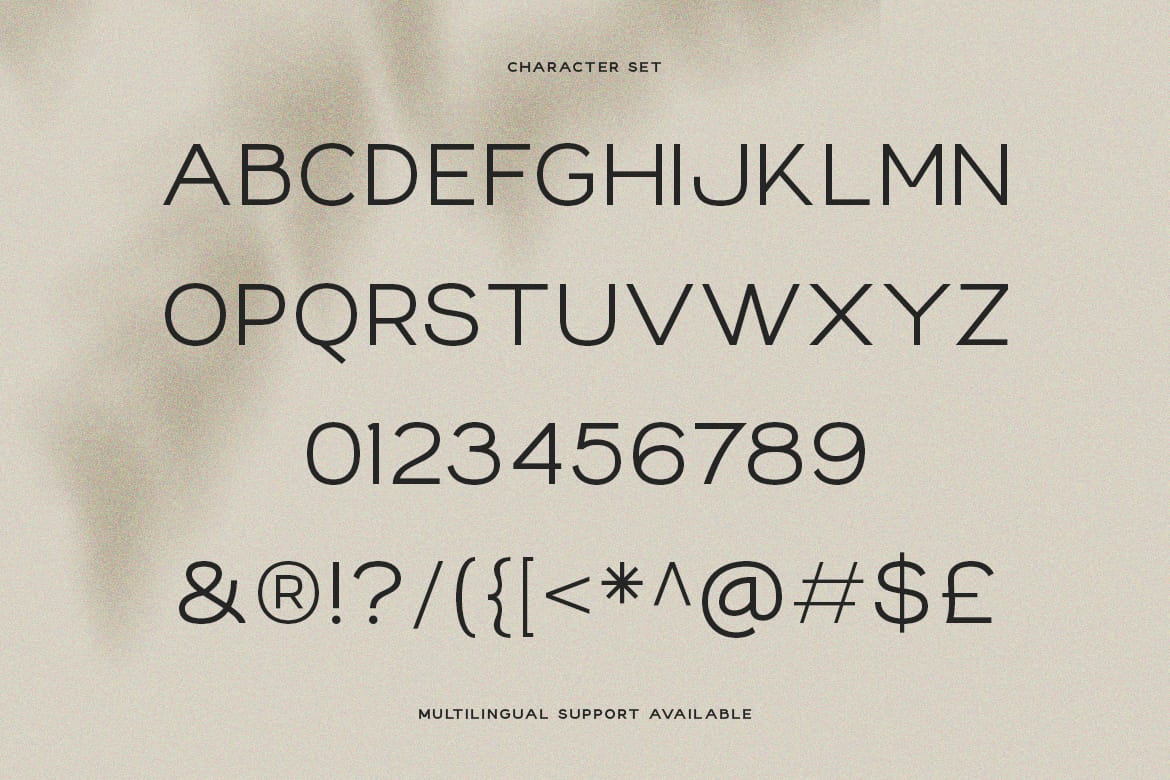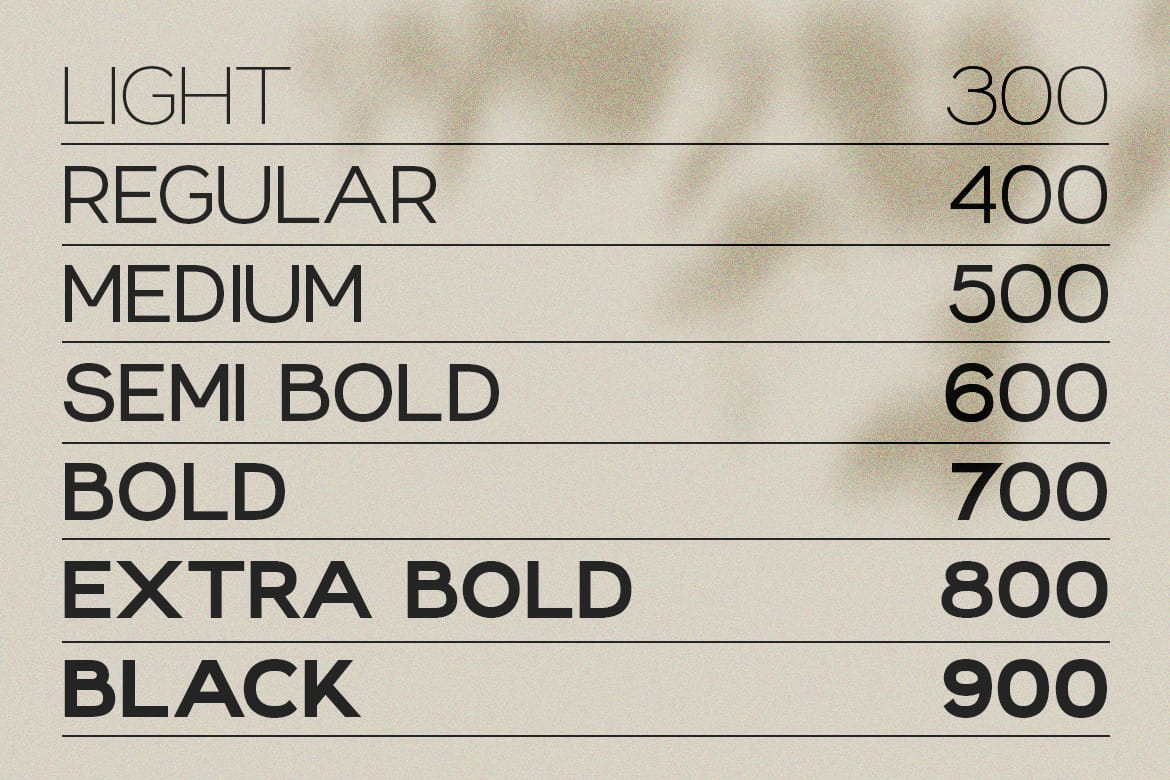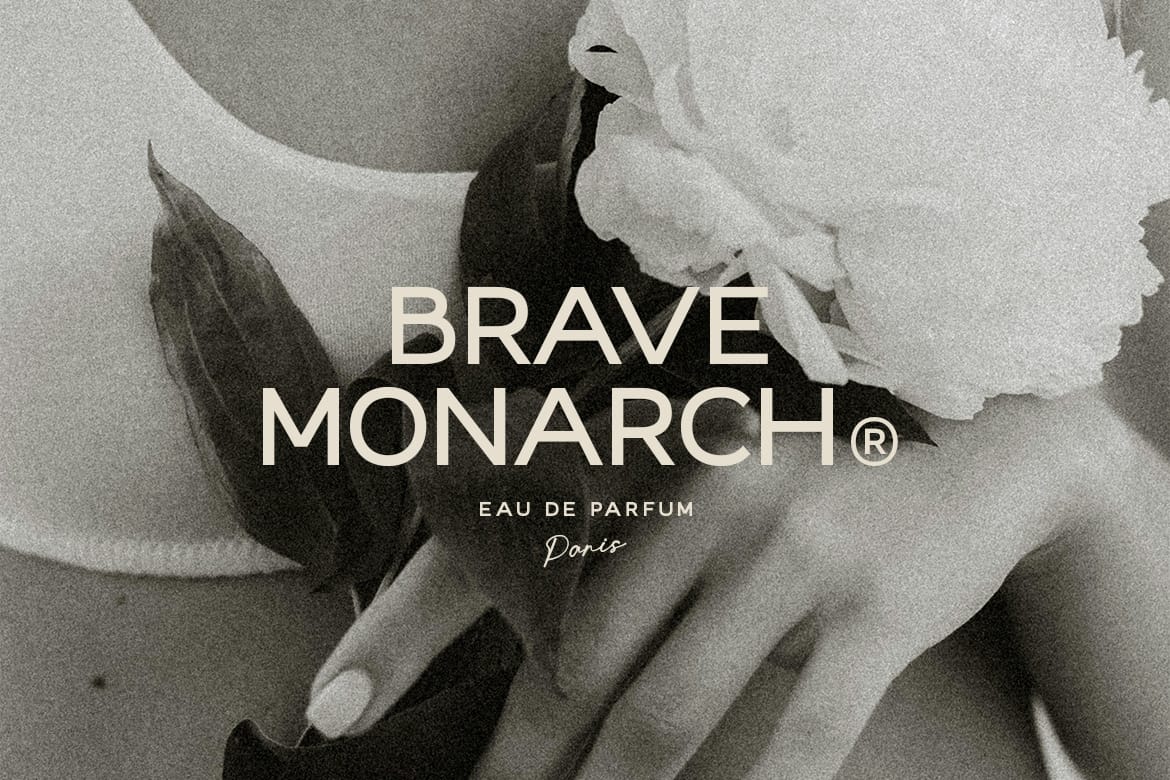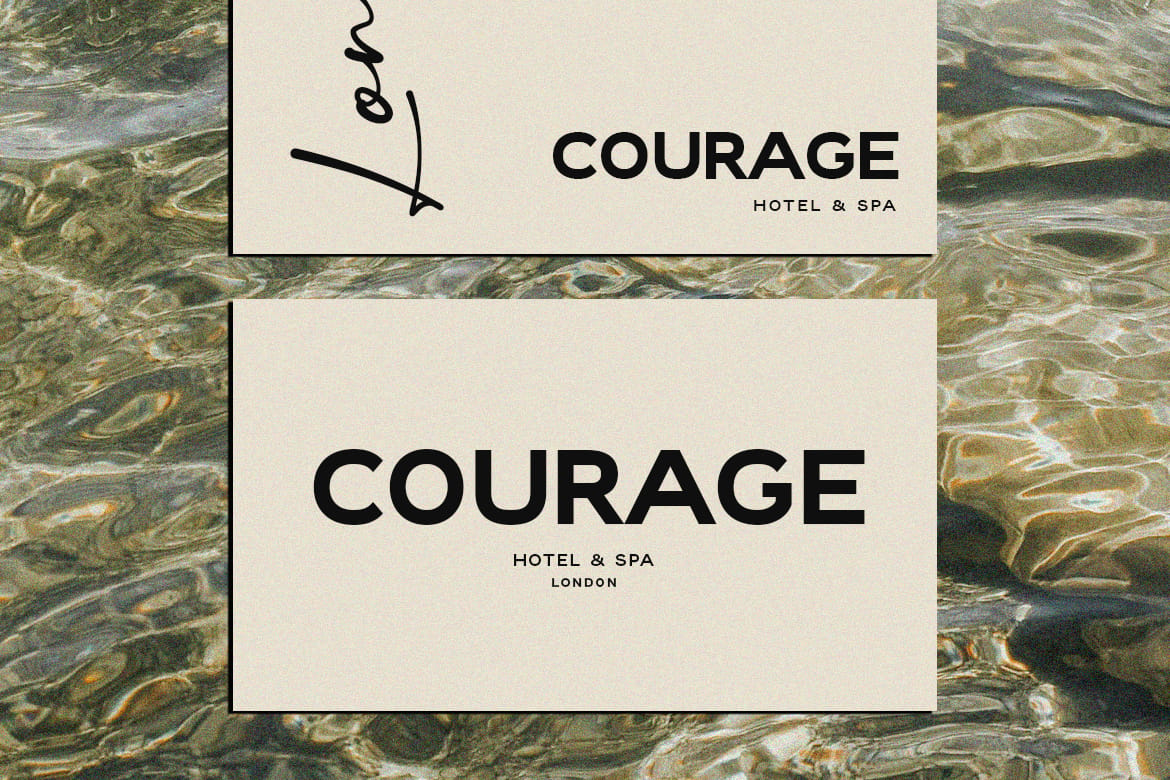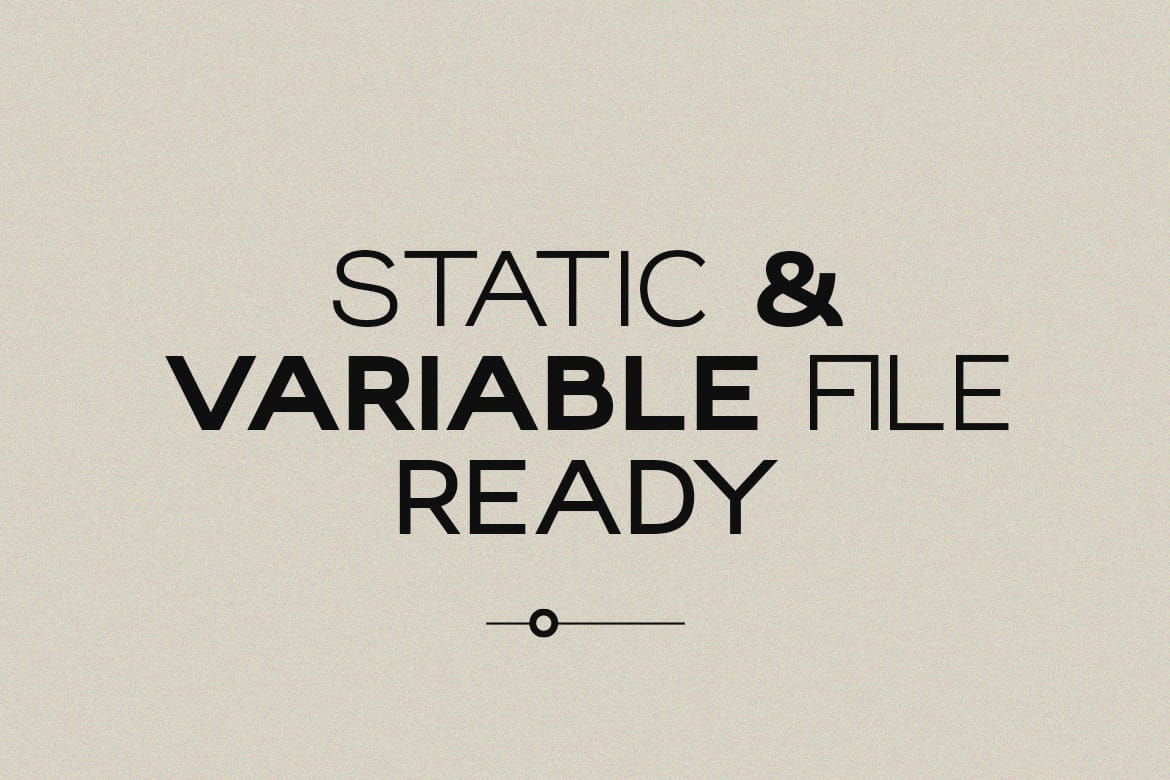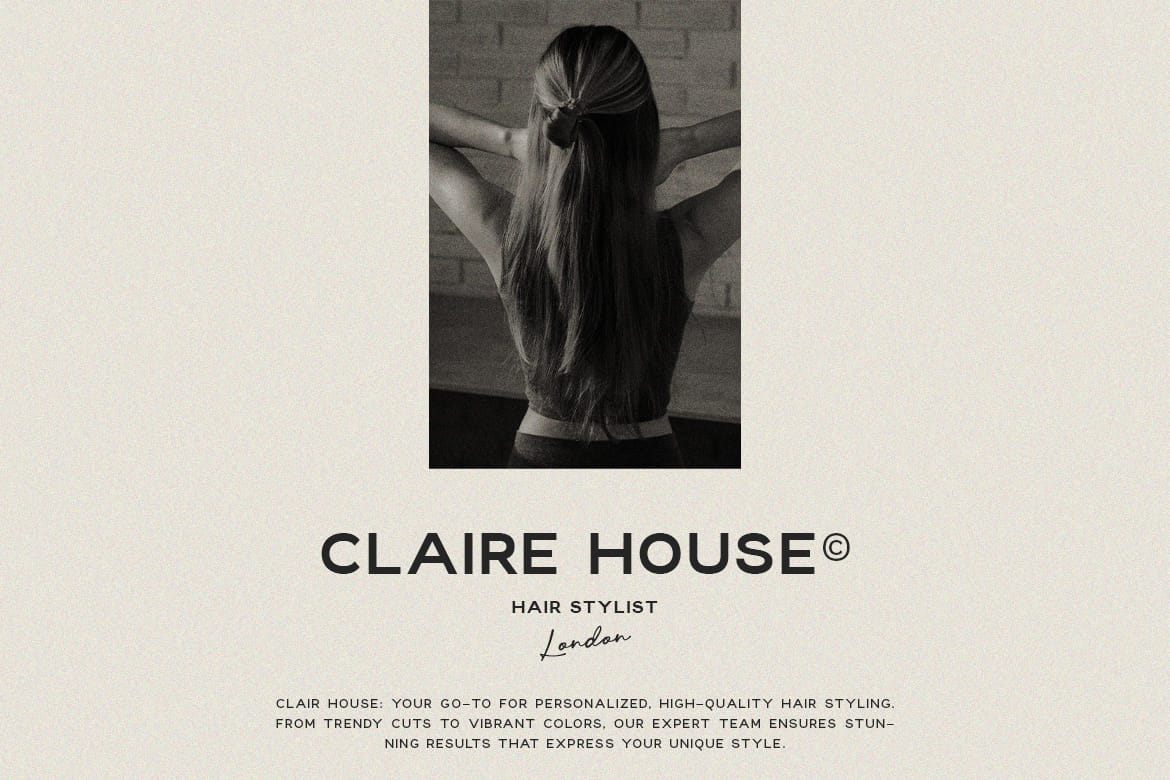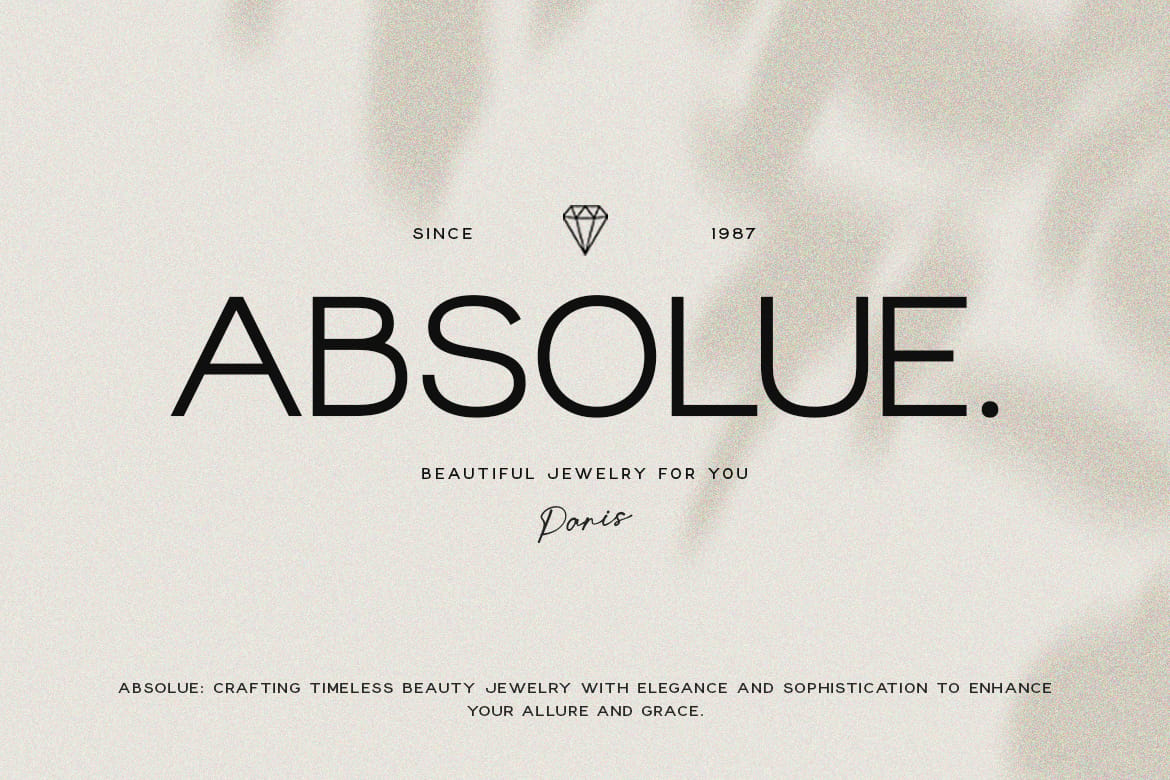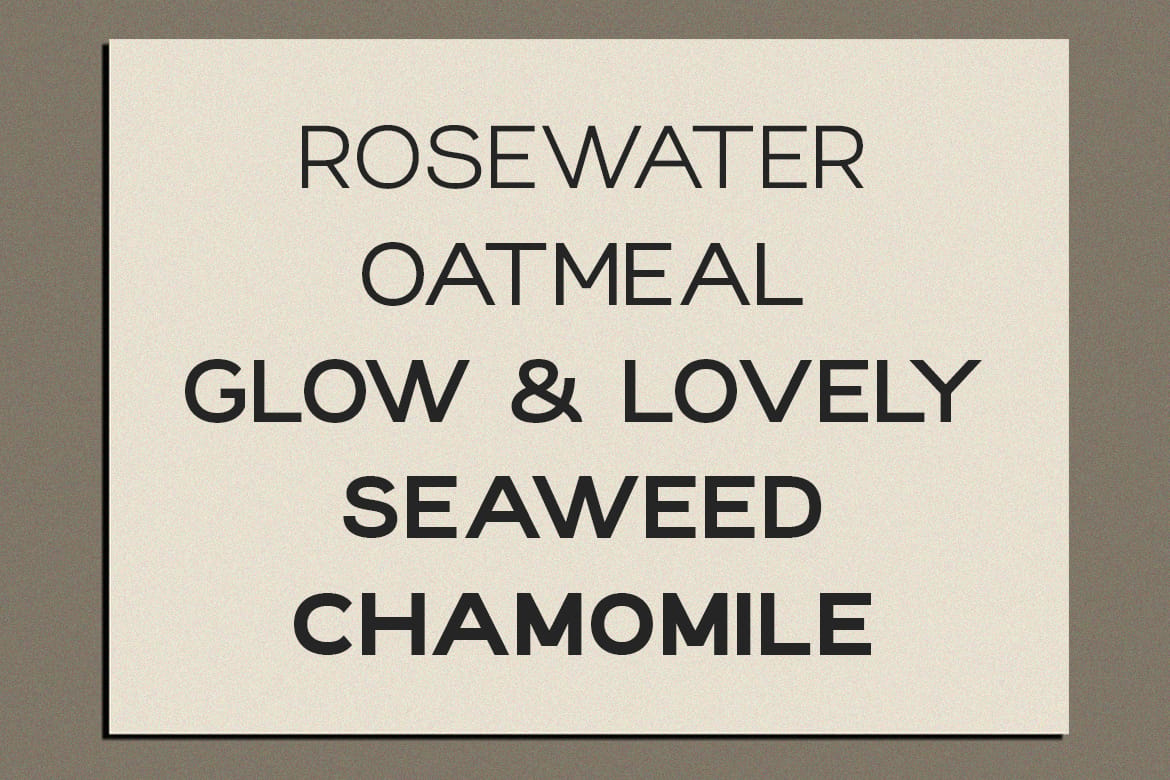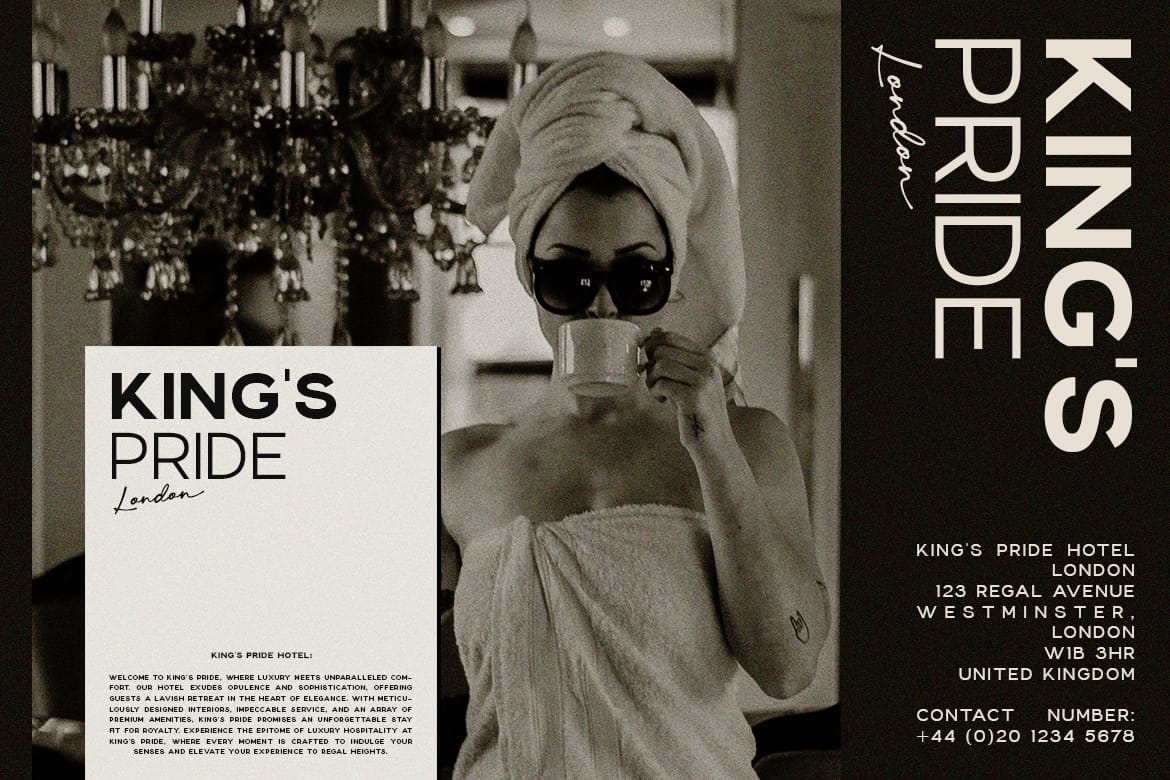
Loede - Clean Sans Family (+Variable)
A versatile sans-serif font family, meticulously crafted for clean and harmonious design. Ranging from light to black weights, it offers seamless integration into various projects, perfect for branding, logos, headers, and more. With both static and variable font files available, Loede provides flexibility and creativity to elevate your designs effortlessly. Unlock the potential of timeless elegance with Loede.
Features: Uppercase, Lowercase, Numeral, Punctuation & Multilingual.
- Clean sans-serif with variable support
- Light to black weight range
- Perfect for branding and headers